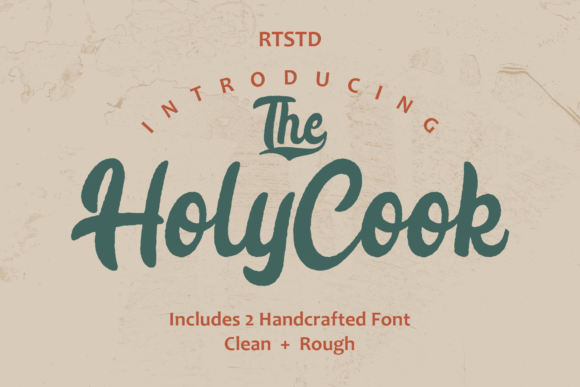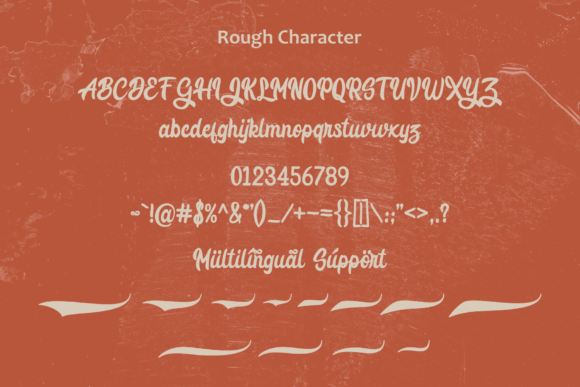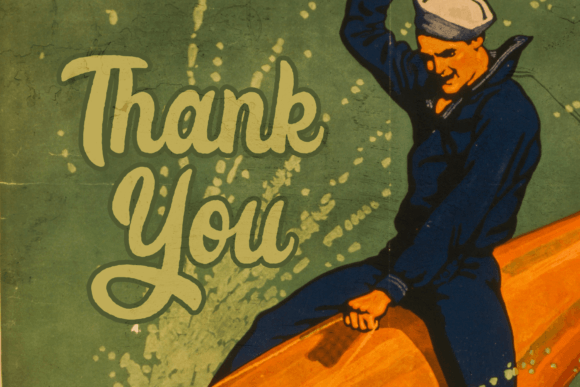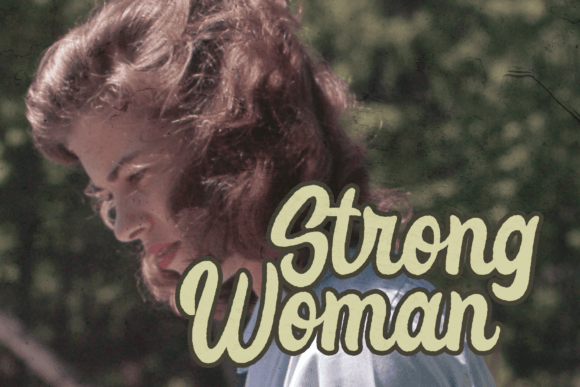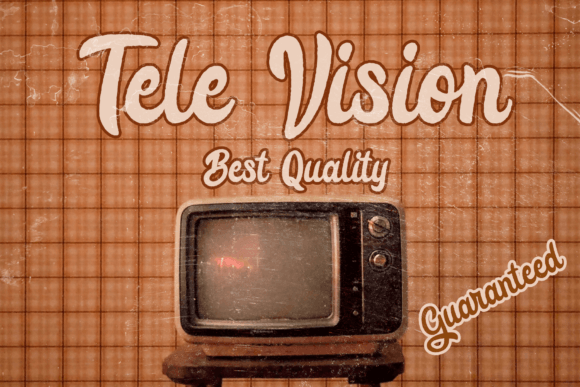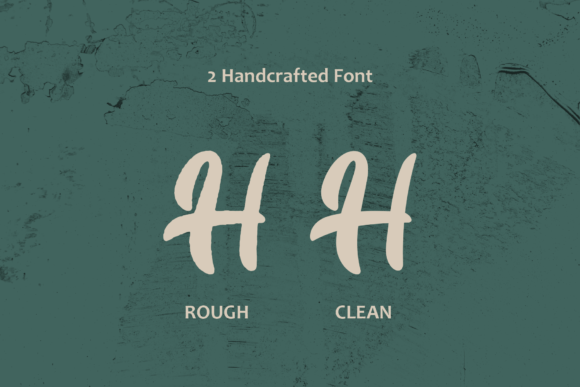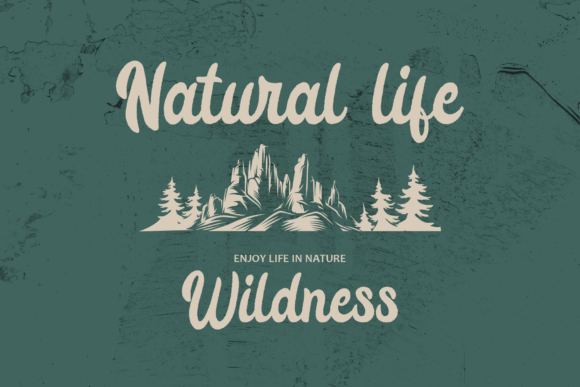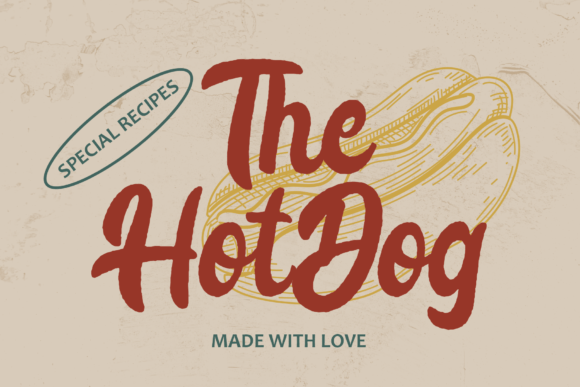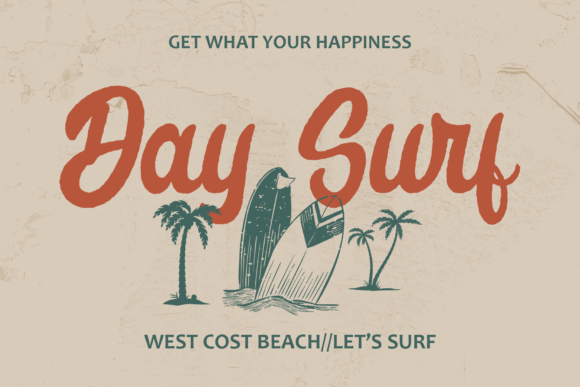
Holy Cook Font
About Holy Cook Font
“Holy Cook: Where Boldness Meets Old-World Charm in Script Typography
Introducing Holy Cook, a bold script font that effortlessly marries the charm of old-style typography with contemporary allure. With its captivating strokes and intriguing alternative features, Holy Cook stands as a unique blend of classic elegance and modern charm. This font is not just a typeface; it’s a design statement, perfect for those who seek a blend of old-school sophistication and contemporary appeal. Whether you’re designing vintage-inspired graphics, branding materials, posters, or any project that demands a touch of timeless charm, Holy Cook becomes the key to unlocking a world of captivating designs.
The allure of Holy Cook lies in its bold script style, where each letter exudes confidence and old-world charm. Its elegant strokes and classic detailing create a visual poetry that captures the essence of traditional script fonts while adding a charming twist. Imagine your branding materials adorned with Holy Cook’s bold script, evoking a sense of nostalgia and sophistication. Picture your posters featuring its intriguing alternative characters, captivating viewers with a unique blend of classic and contemporary aesthetics. With Holy Cook, your designs embrace a bold yet charming character, making them visually striking and emotionally resonant.
One of Holy Cook’s standout features is its versatility. Its old-style charm and modern twist make it suitable for a wide range of applications, from vintage-inspired designs to modern branding projects. Whether you’re designing retro logos or crafting contemporary posters, Holy Cook enhances your designs with its captivating combination of old-world elegance and modern flair, making them stand out with a unique blend of history and style.
Moreover, Holy Cook is more than just a font; it’s an invitation to explore the rich tapestry of design history. Its boldness and old-style charm resonate with individuals who appreciate the beauty of vintage typography and the allure of modern aesthetics, making it a favorite among designers and enthusiasts seeking a font that tells a story of tradition and innovation. Holy Cook becomes a bridge between the past and the present, allowing you to infuse your designs with a touch of classic elegance and contemporary allure.
In a world where boldness meets old-world charm, Holy Cook helps you make a statement. It speaks the language of timeless sophistication and modern allure, resonating with those who appreciate the beauty of classic design with a contemporary twist. Whether you’re designing for vintage-inspired themes or modern branding, Holy Cook becomes your trusted companion, guiding you toward design excellence.
So, why settle for the ordinary when you can embrace the extraordinary with Holy Cook? Let this bold script font be the canvas for your creative expressions, and watch as your projects come to life with captivating elegance, style, and charm. Let your creativity flow, and let Holy Cook be the brushstroke that paints your ideas into visually captivating masterpieces, leaving a lasting impression on the hearts of your audience. Make Holy Cook a cherished part of your font collections, and transform your designs into timeless works of art where classic charm meets modern allure.”